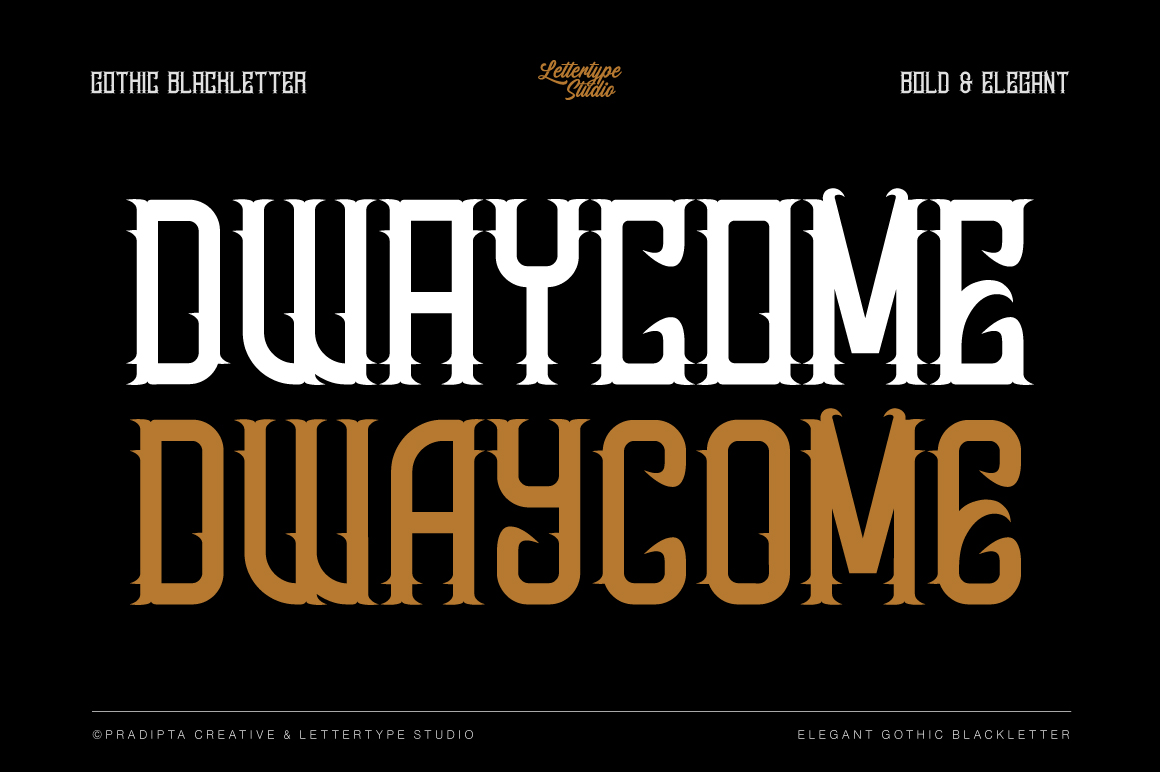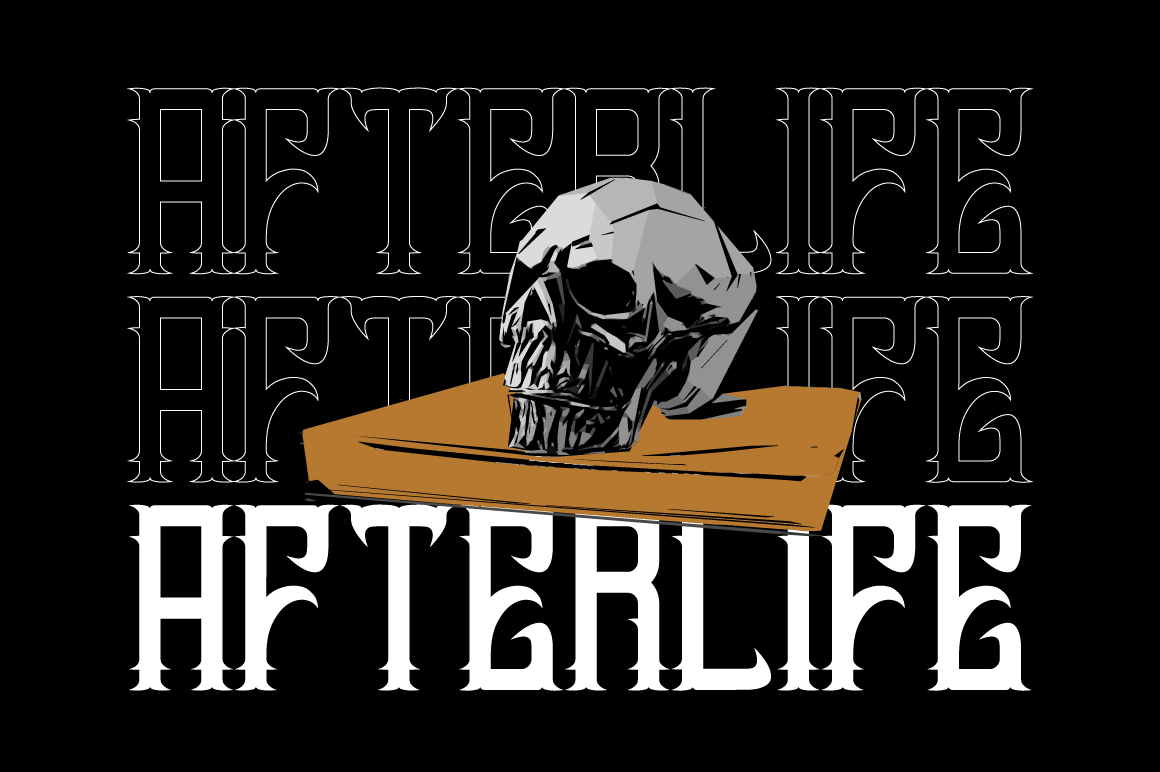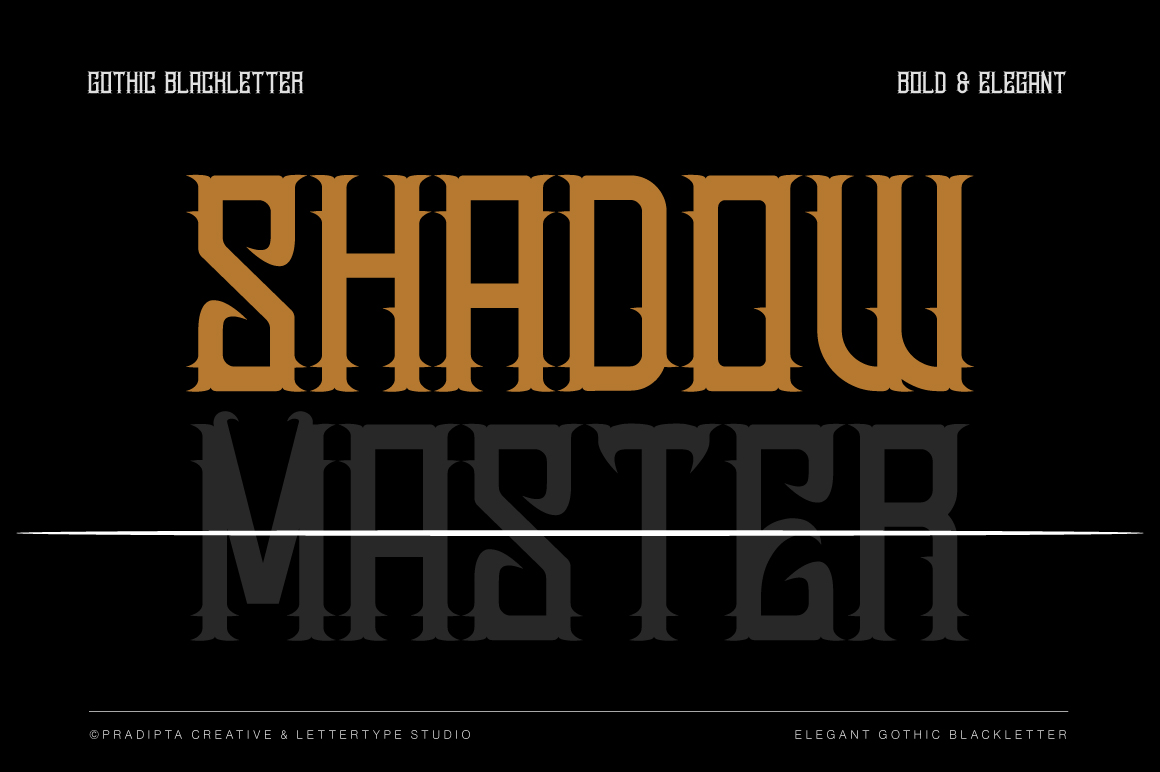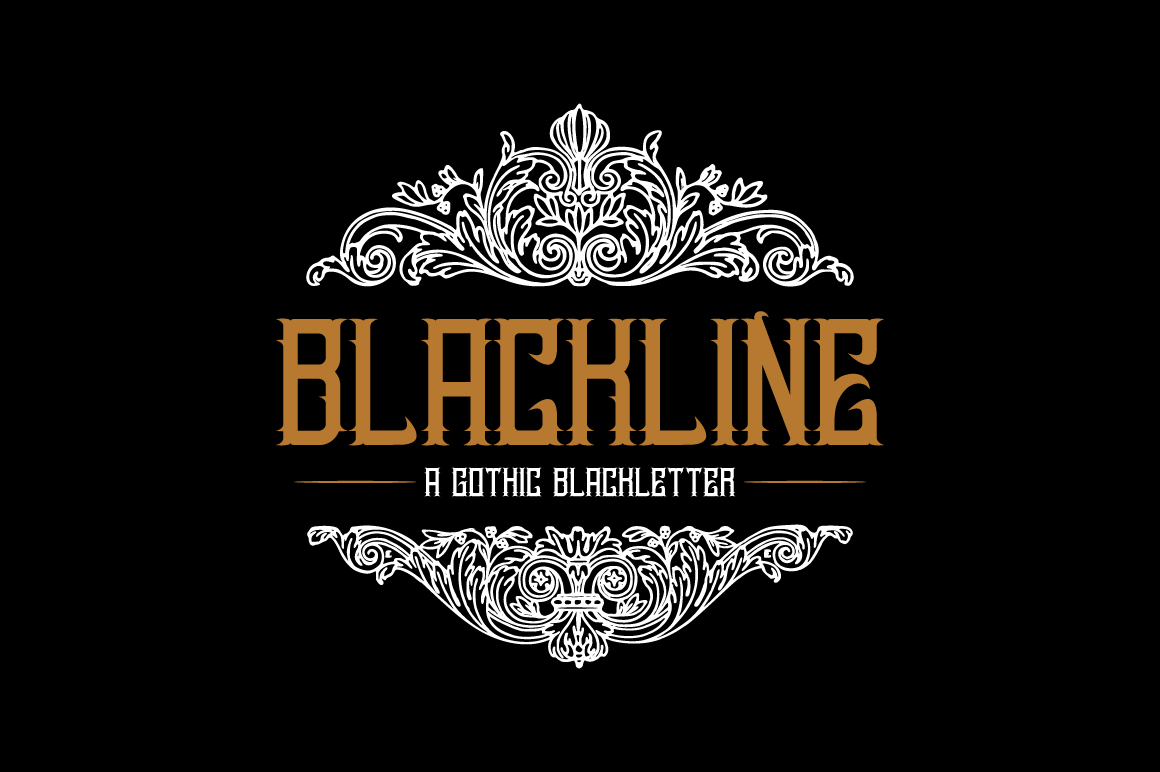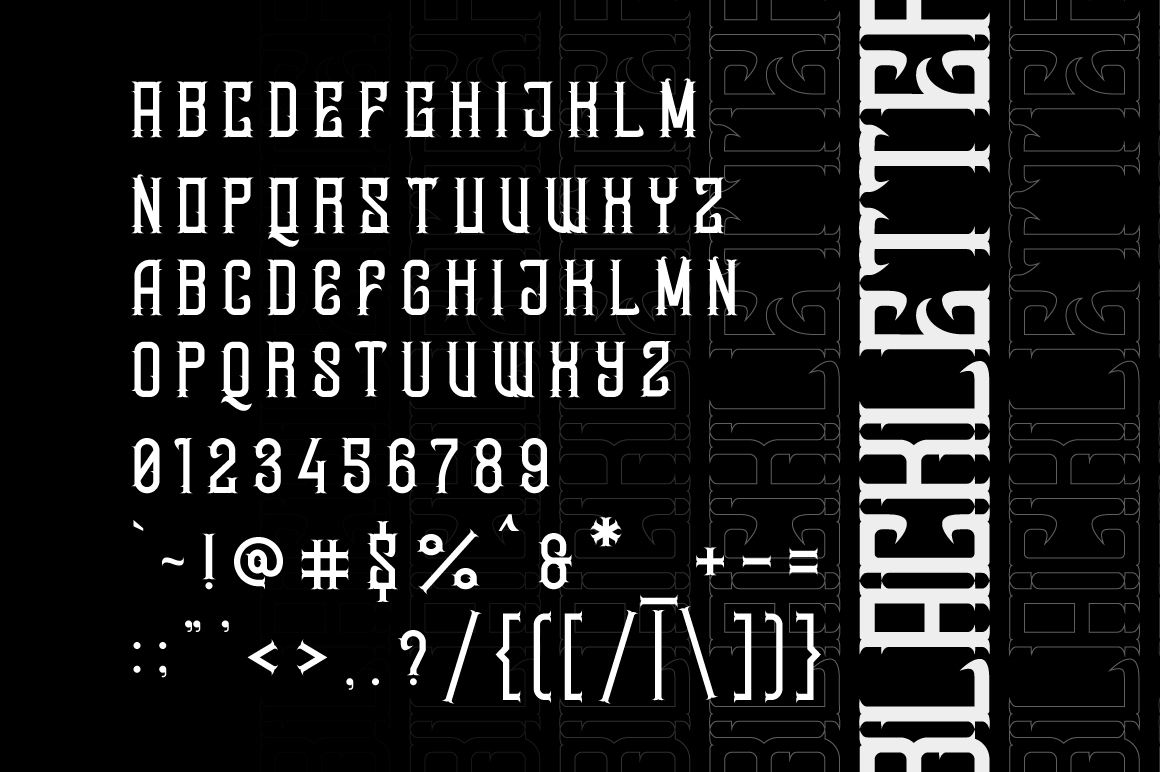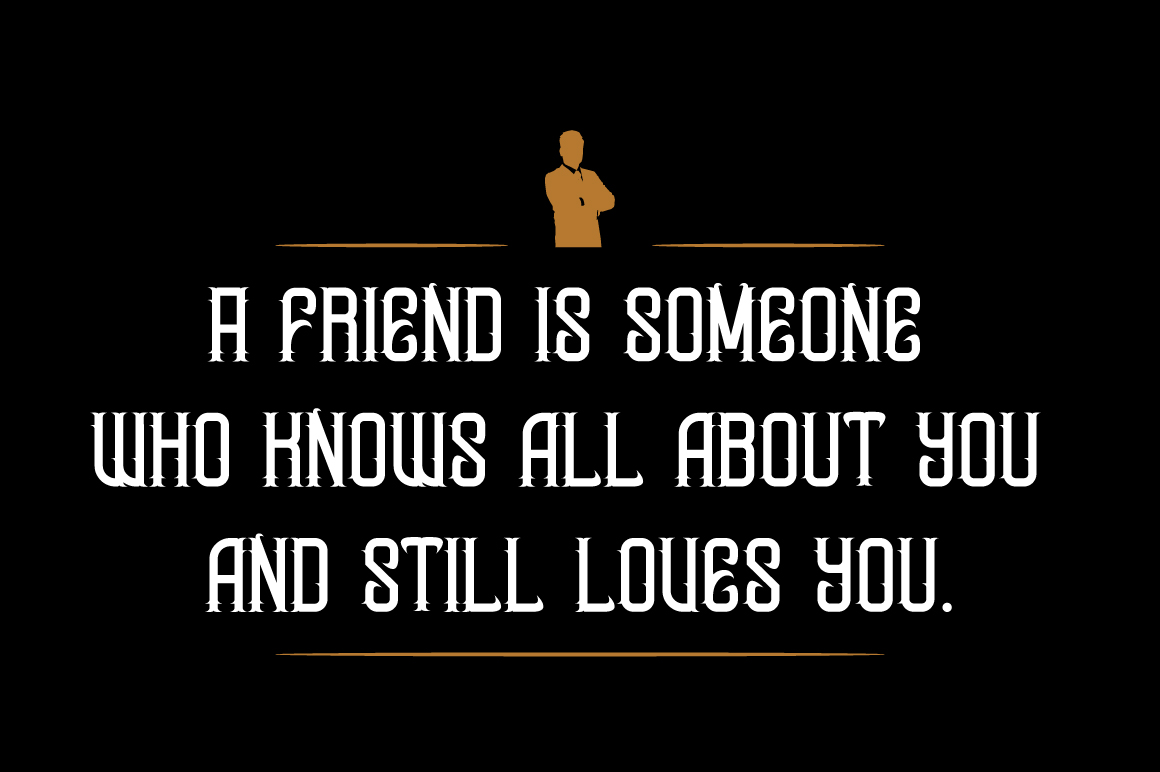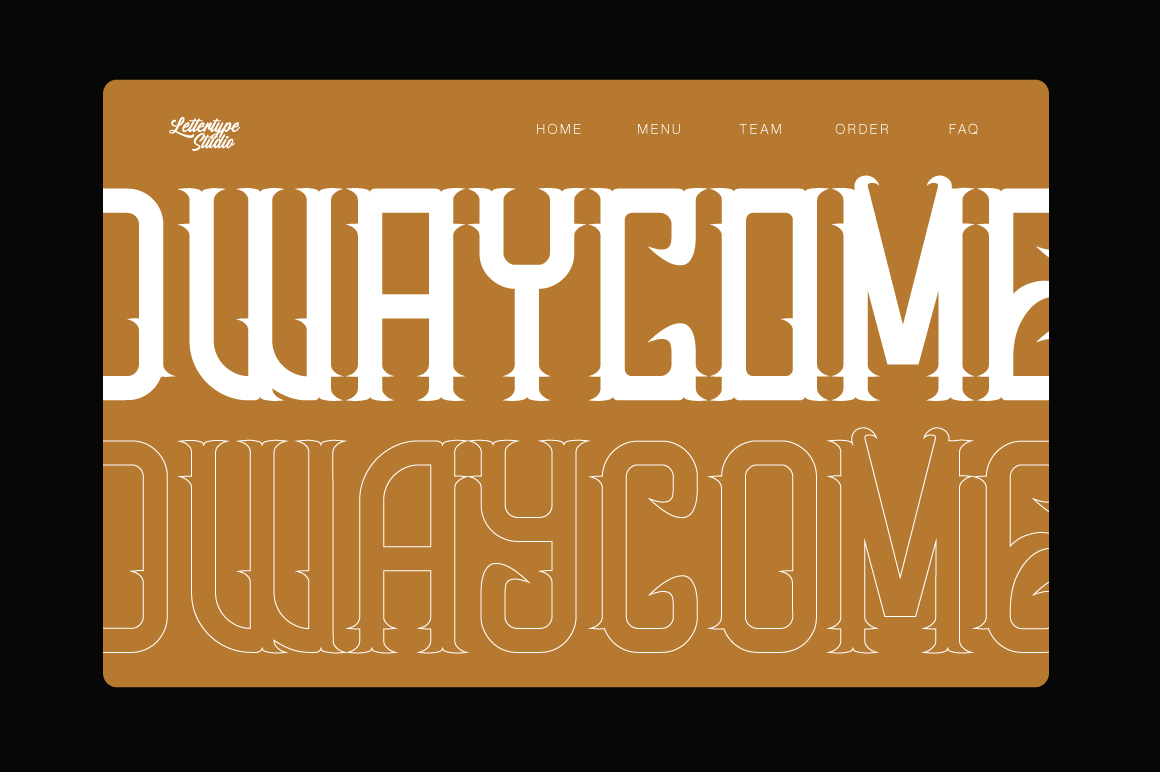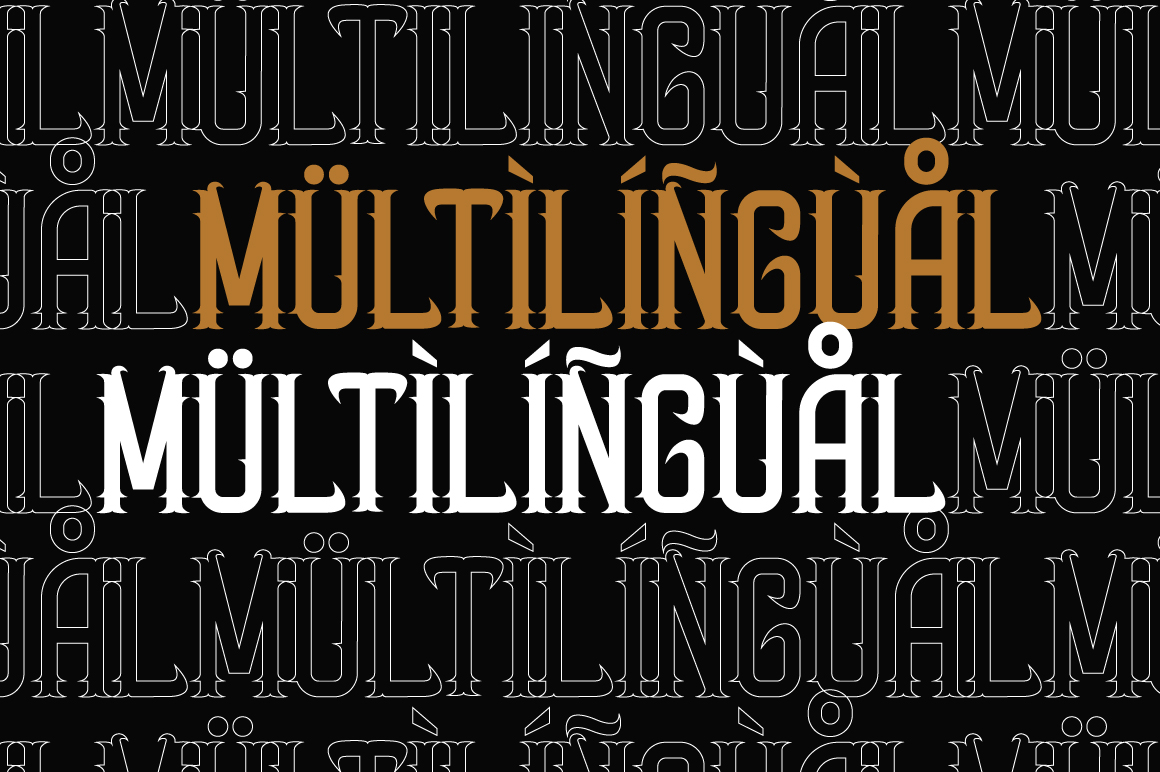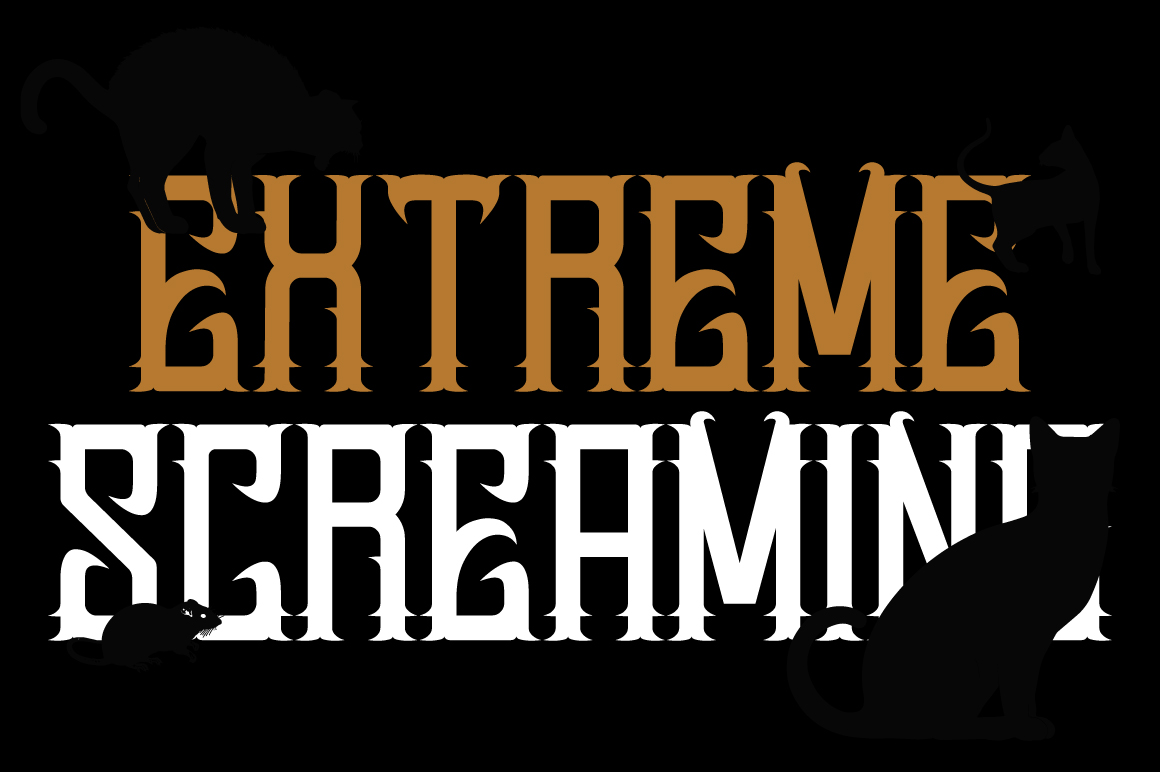
Dwaycome
Dwaycome is a gothic blackletter display font that merges historical craftsmanship with bold modern design. Featuring intricate curves and clean symmetry, it evokes the timeless elegance of medieval calligraphy while maintaining contemporary legibility and style.
Perfect for logos, posters, editorial layouts, and branding, Dwaycome delivers a powerful visual identity with a gothic yet refined personality. Its balanced structure makes it ideal for designers seeking to blend vintage sophistication with modern aesthetics across digital and print media.
• Lowercase & Uppercase
• Numerals & Punctuation
• Alternates & Ligature
• Multilingual Support
• Gothic logos, branding & tattoo-inspired visuals
• Book covers, album art & movie title design
• Posters, merchandise & editorial projects
• Vintage-inspired packaging & apparel prints
• Bold artistic layouts with medieval charm